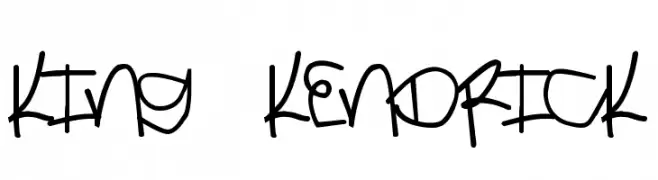
A bold, geometric font with a futuristic, segmented design.
A bold, futuristic font with geometric, block-like characters.
A bold, 3D geometric font with a futuristic and industrial look.
A bold, geometric font with a futuristic and industrial style.
A bold, graffiti-inspired handwritten font with a dynamic and urban style.
A bold, modern sans-serif font with clean lines and excellent readability.
A bold, geometric font with characters enclosed in squares, offering a modern and structured appearance.
A bold, sans-serif font with a modern, clean, and structured appearance.
A casual, handwritten font with uneven, dynamic strokes.
A bold, geometric font with a futuristic and modern design.